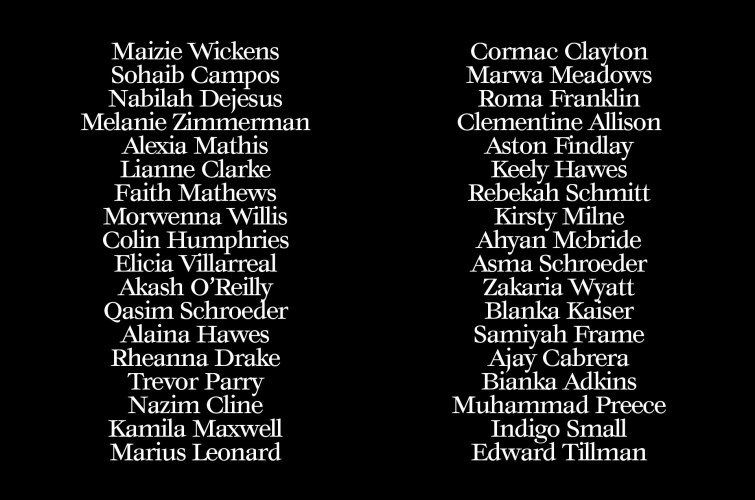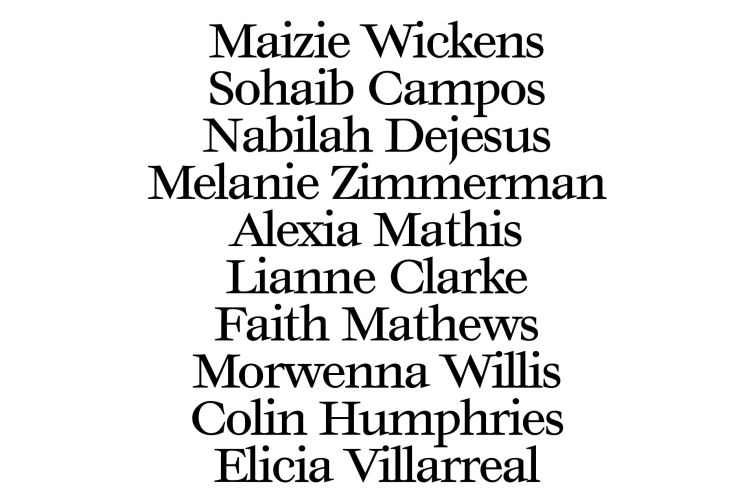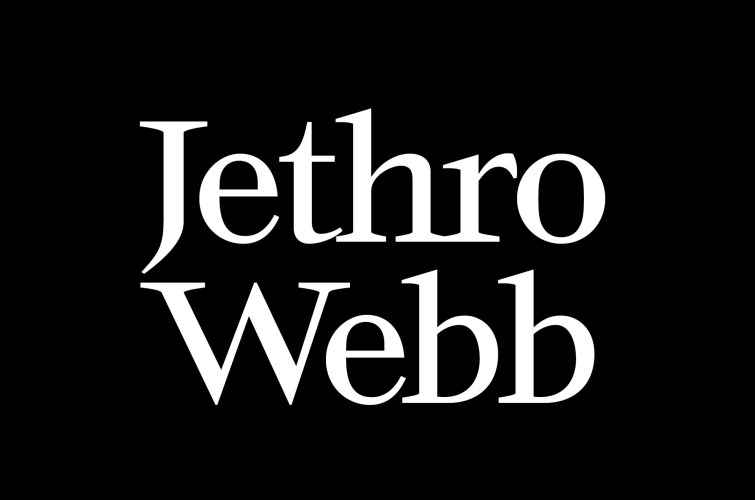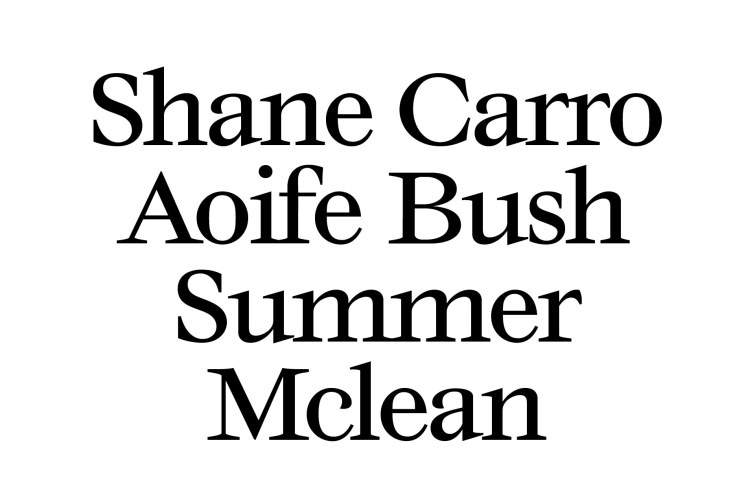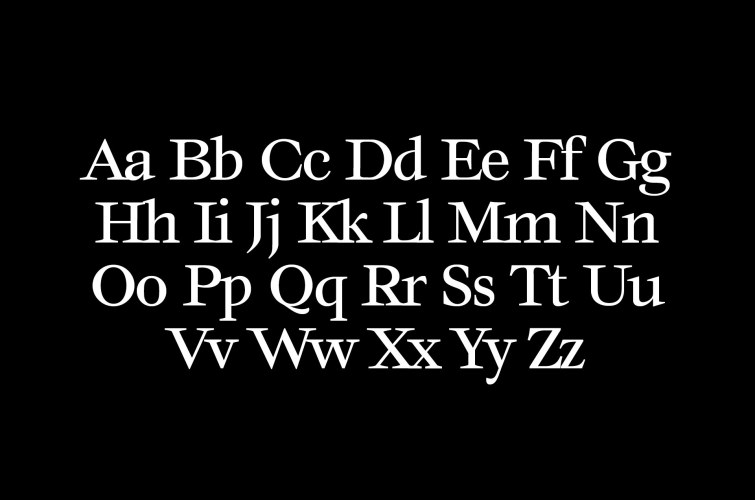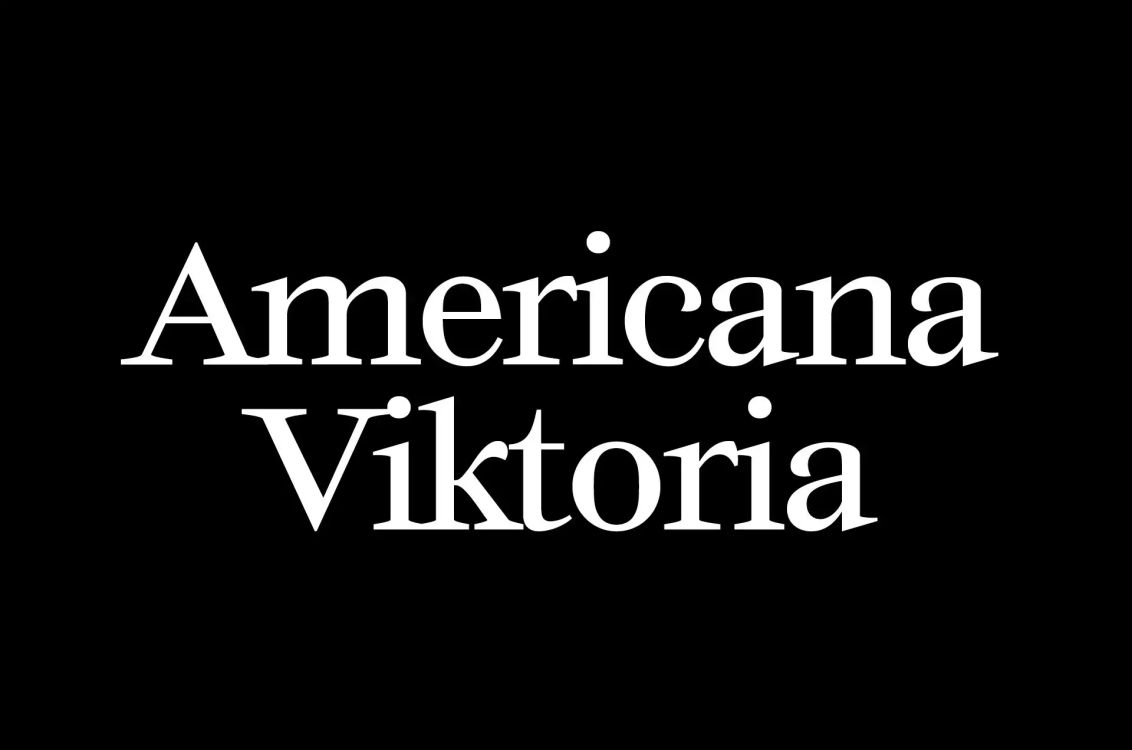
Americana Viktoria Font
Introducing Americana Viktoria a serif font – where classic Americana meets Viktoria elegance. This font effortlessly combines timeless charm with refined sophistication, making it the perfect choice for projects that demand a blend of tradition and modernity. Elevate your design with the versatile and distinctive style of Americana Viktoria Serif Font.
Americana Viktoria Font is a Serif Fonts font that brings a professional and versatile look to your projects. Introducing Americana Viktoria a serif font – where classic Americana meets Viktoria elegance.